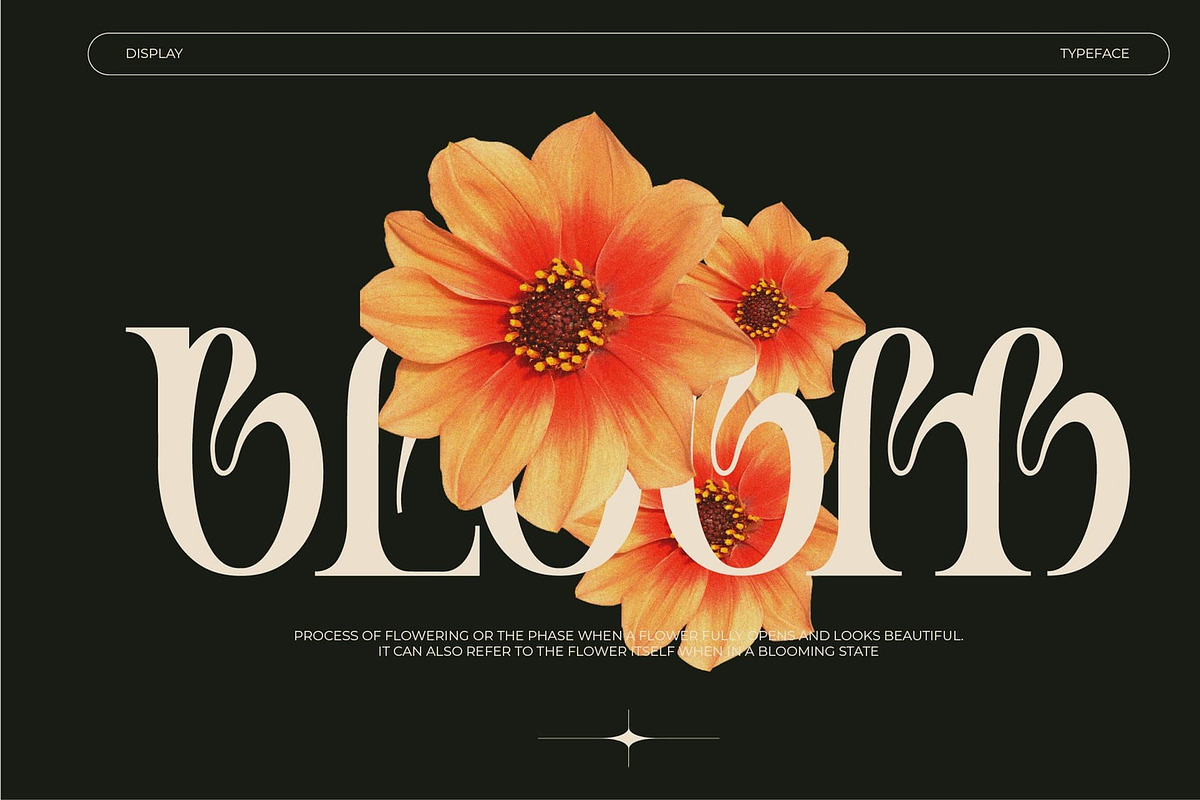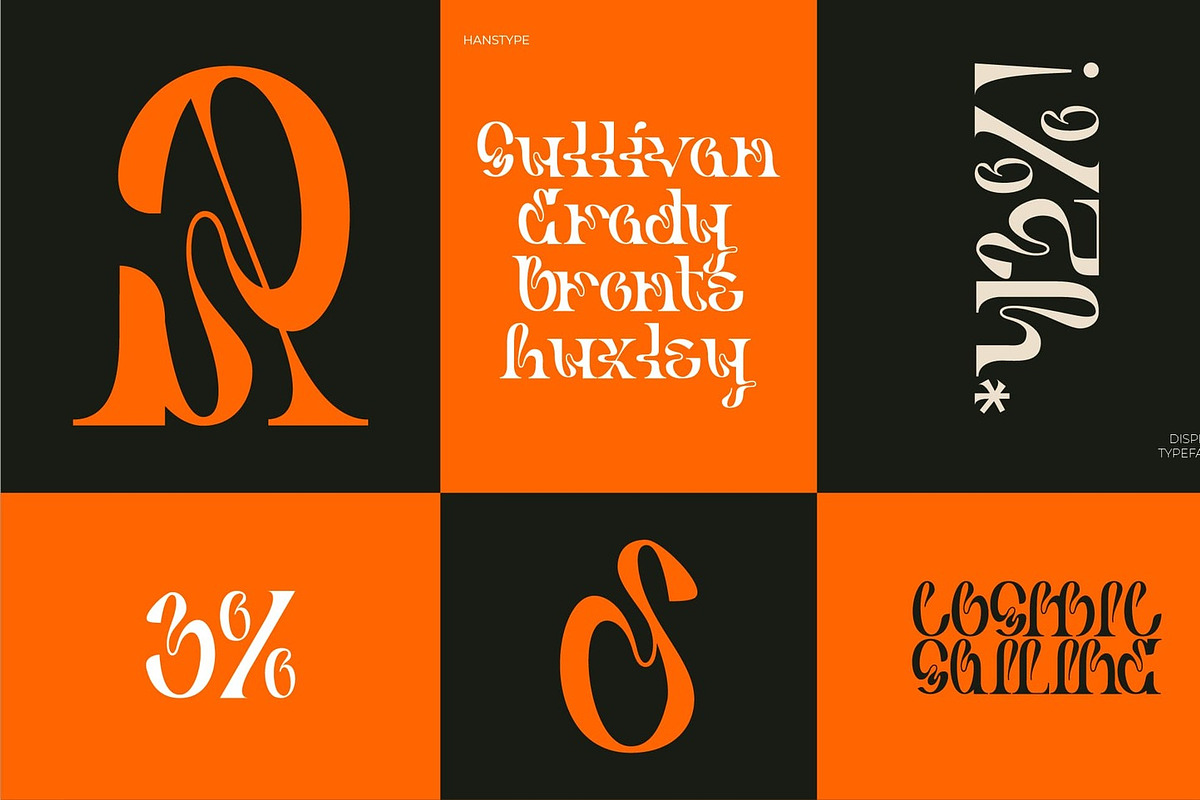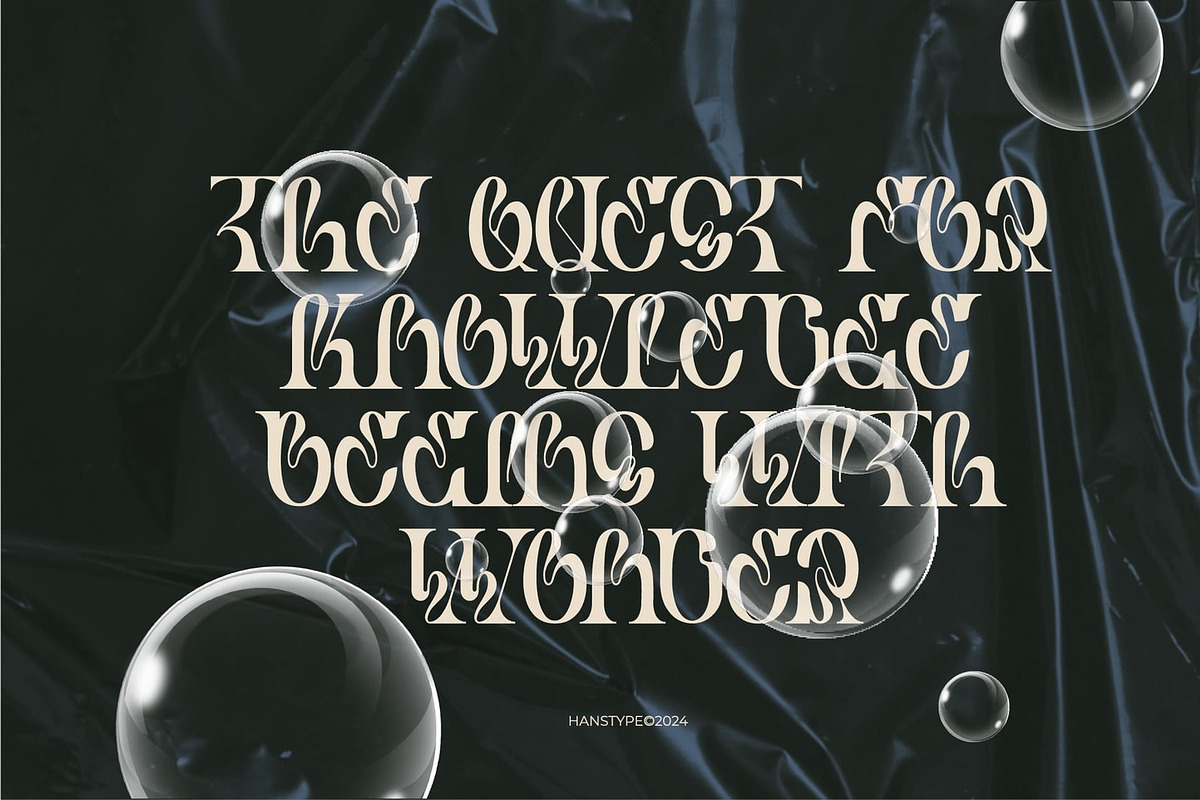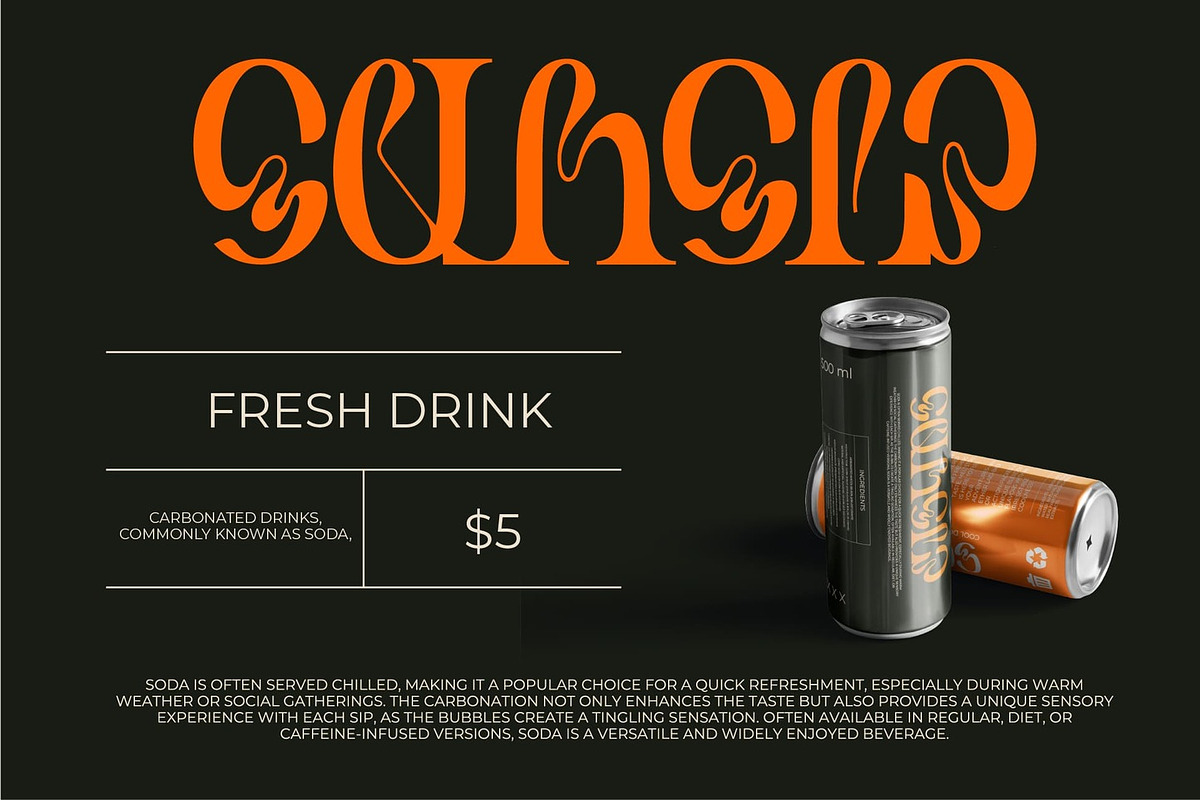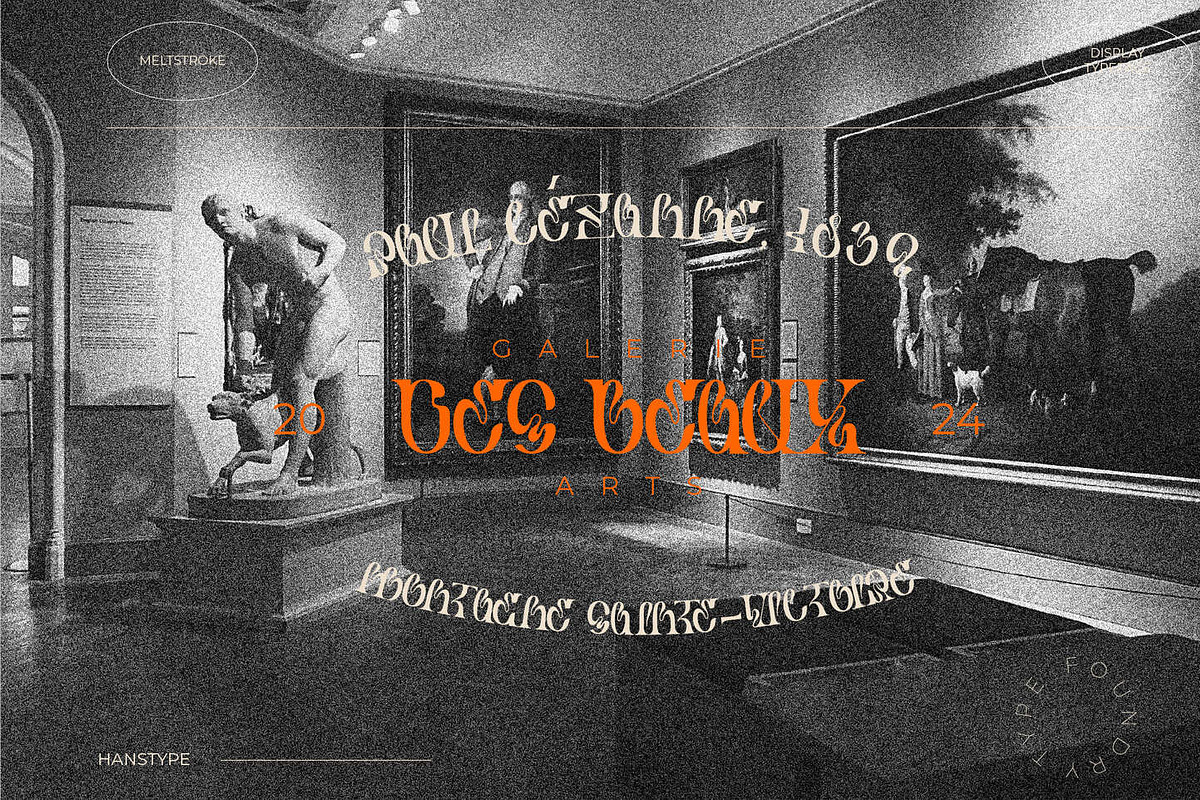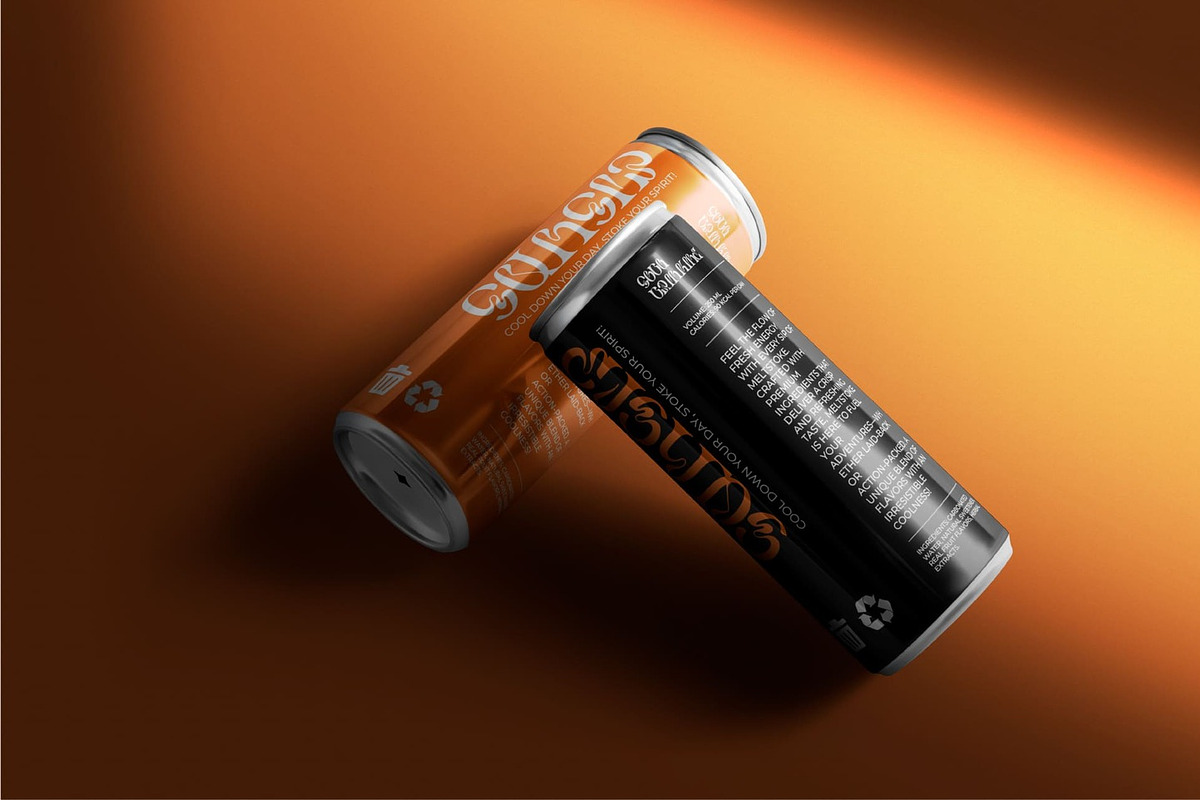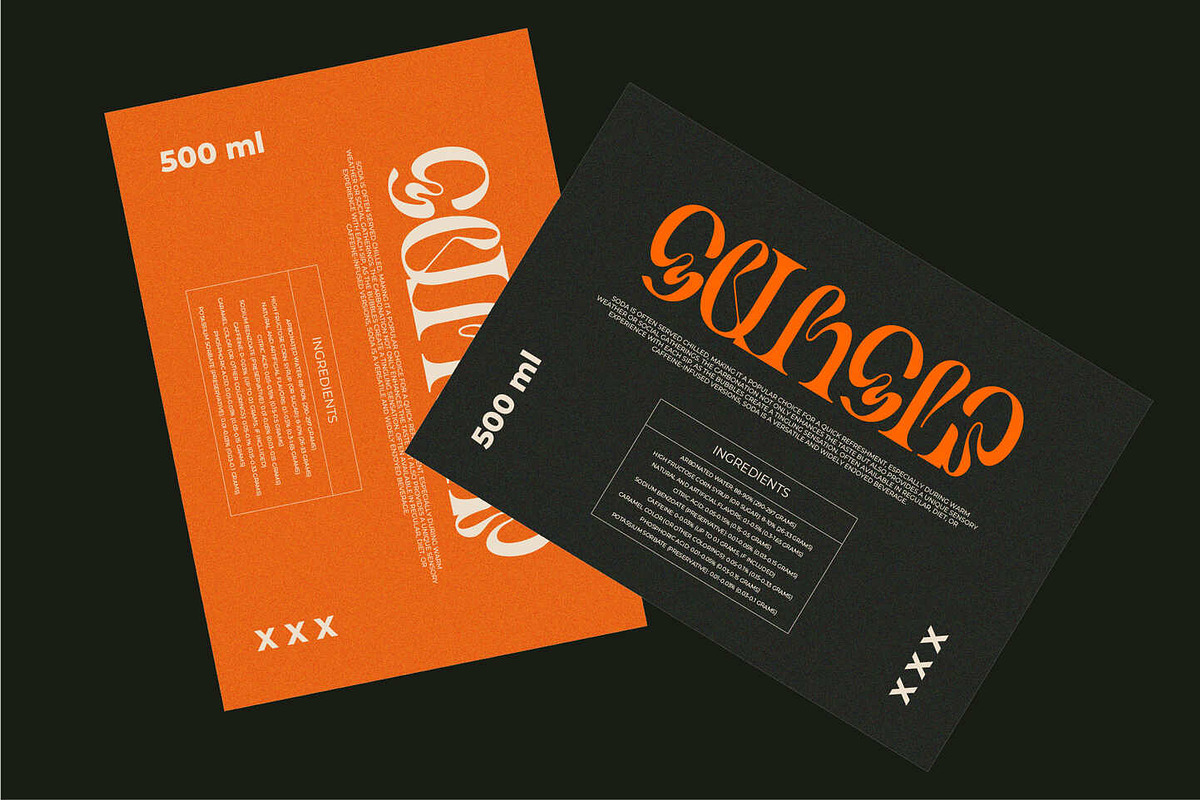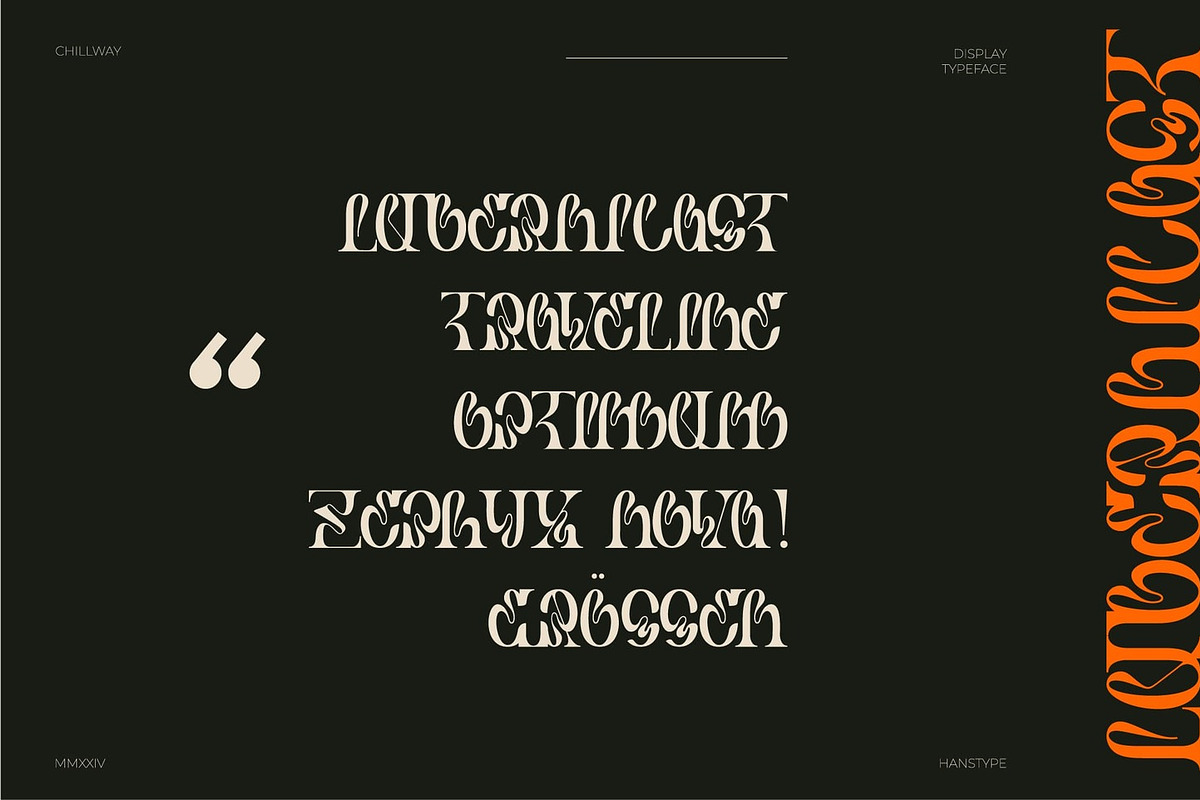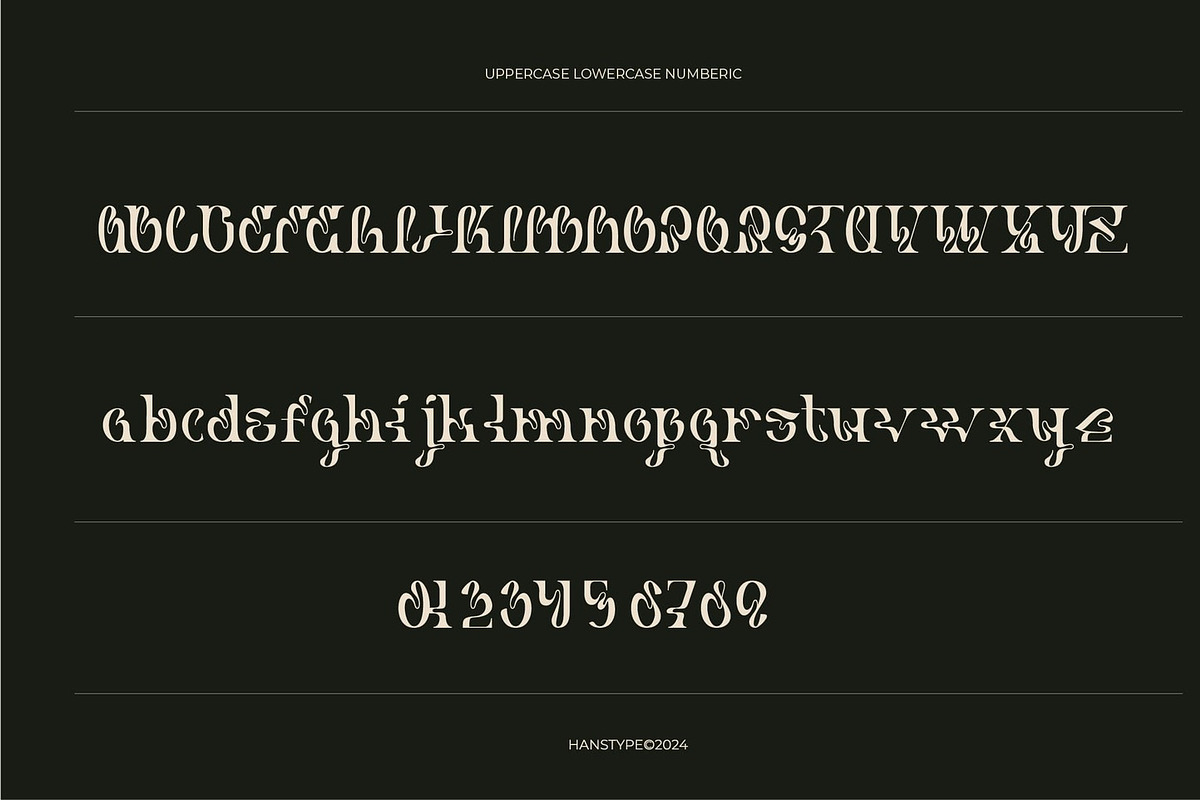
Chillway - Stylish Serif Font
Chillway is a serif font that embodies a melted vintage charm, seamlessly blending classic forms with a modern twist. Its elegant display is perfect for creating strong visual impact, making it ideal for headlines, posters, and branding that seek a classic touch infused with contemporary flair.